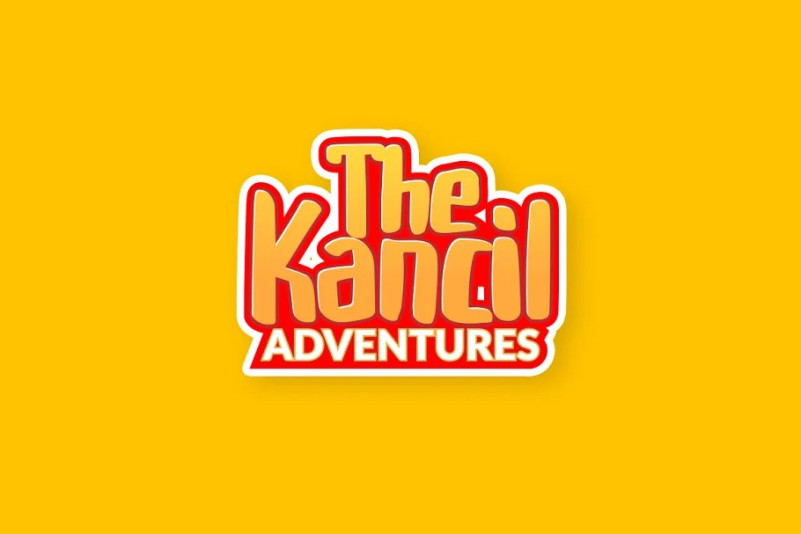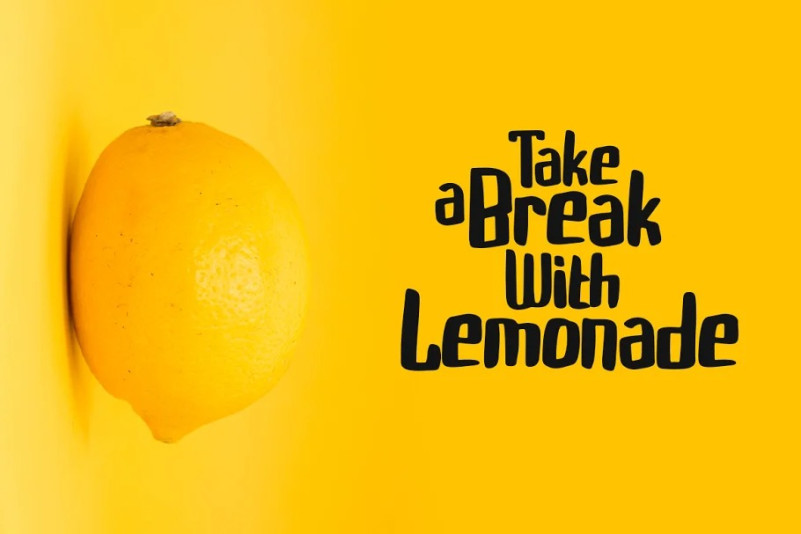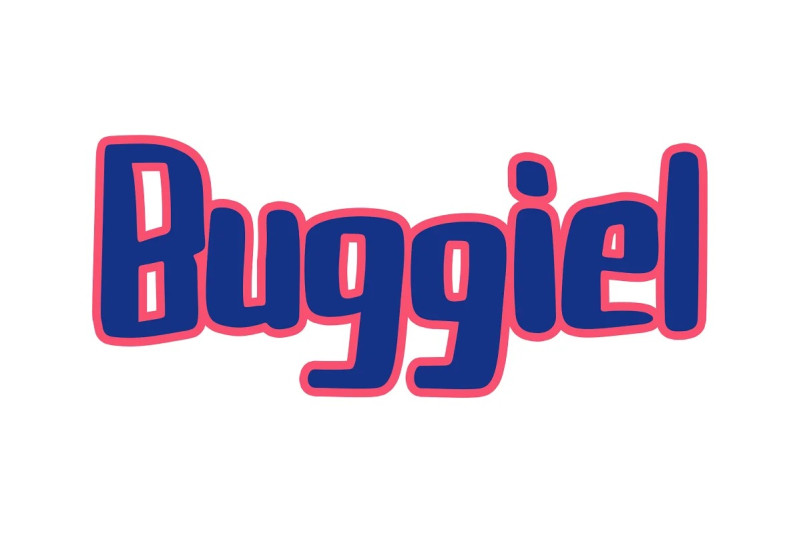
Buggiel Font
Buggiel Display Font, a new font produced to give that hand made look. Which is you can create a fun and fresh design easily.
Buggiel is very suitable for logo design, kids t-shirts, tote bag, game assets, birthday cards, cover book, magazine, flyer, quotes, packaging and of course much more.